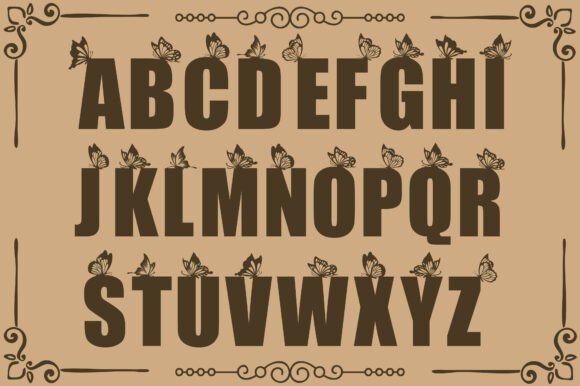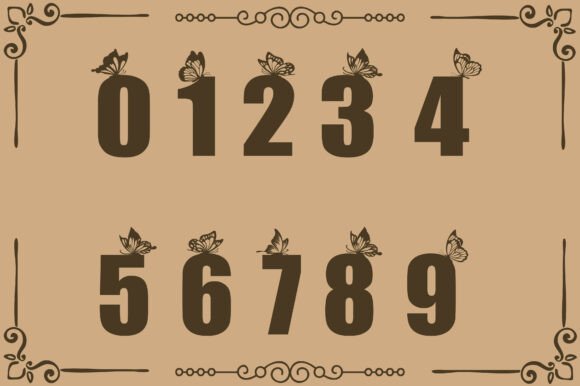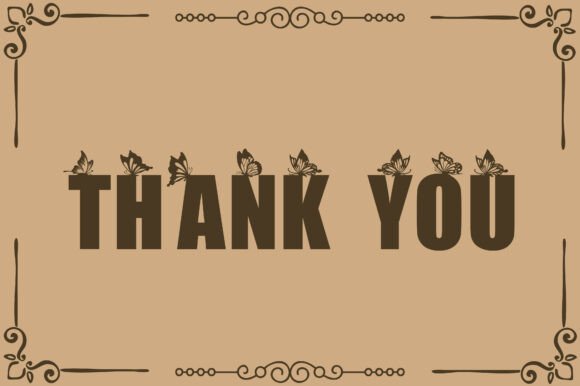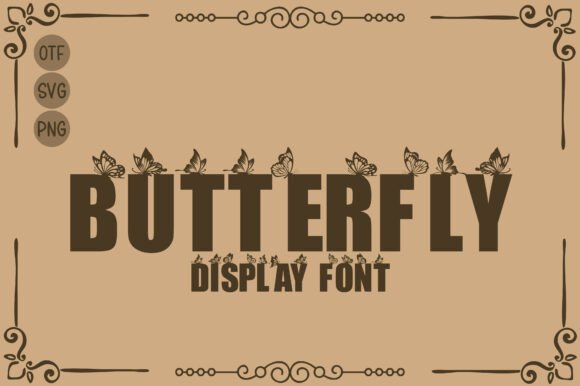
Bring a Touch of Beauty and Elegance with Butterfly Font
Are you looking for a unique and charming font to elevate your designs? Look no further than the Butterfly Font SVG PNG OTF! This beautiful font is perfect for feminine designs, wall art, stickers, invitations, logos, or Cricut and Silhouette crafts. With its adorable butterflies resting on bold letters, this font adds a soft, charming, and whimsical style to your projects.
This versatile font is great for a wide range of projects, including:
- Girls’ room decor: Add a touch of elegance and charm to nursery walls, growth charts, or decals.
- Logo and brand design: Create a unique and memorable logo for your business or brand.
- Greeting cards and invitations: Make your cards and invites stand out with this beautiful and whimsical font.
- Digital crafts and printable projects: Use this font to create stunning printable art, stickers, or party decorations.
Why Choose Butterfly Font?
Here are just a few reasons why Butterfly Font is a great choice for your next project:
- Unique and eye-catching: The adorable butterflies on each letter make this font truly one-of-a-kind.
- Feminine and elegant: Perfect for designs that require a touch of sophistication and charm.
- Versatile: Use it for a wide range of projects, from digital crafts to logo design.
Get Ready to Create Magical Designs!
Bring a touch of beauty and elegance to your designs with Butterfly Font SVG PNG OTF. With its unique and eye-catching butterflies, this font is perfect for feminine designs, wall art, stickers, invitations, logos, or Cricut and Silhouette crafts. Download Butterfly Font today and start creating magical, butterfly-inspired designs that flutter with elegance and charm!